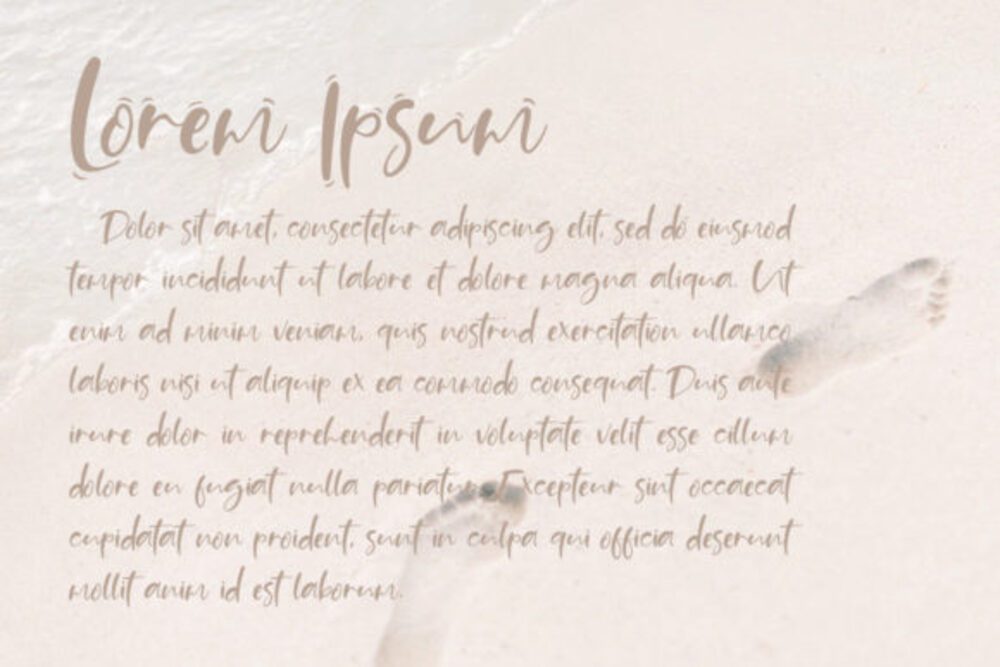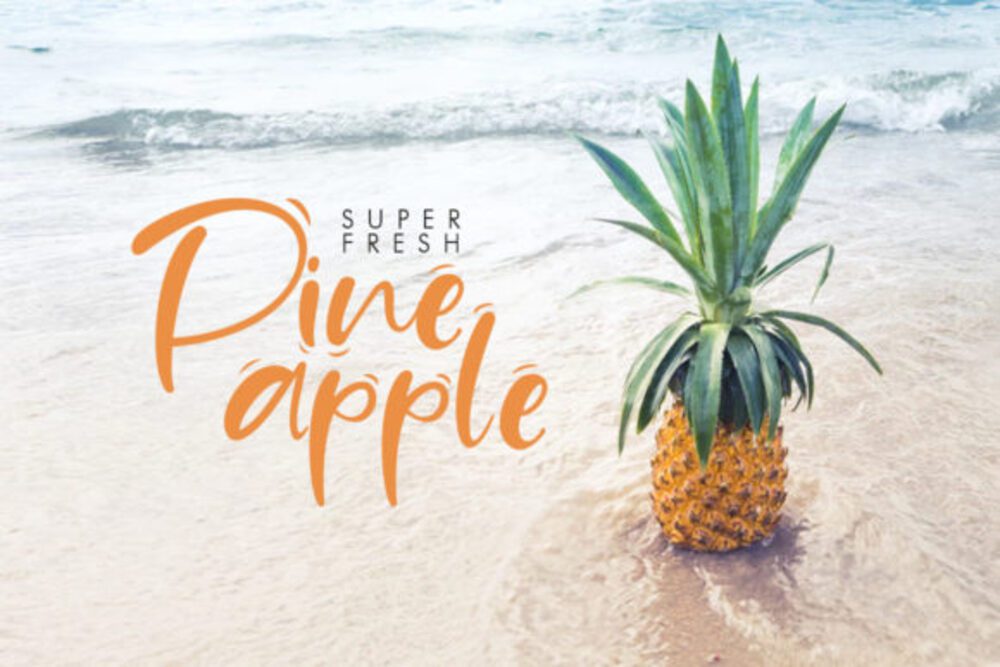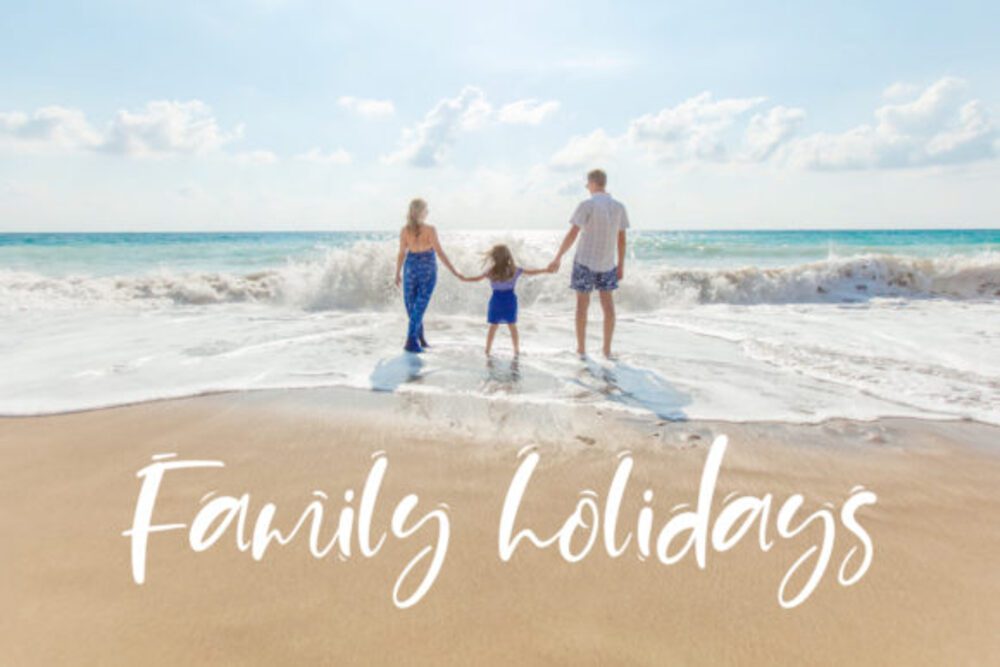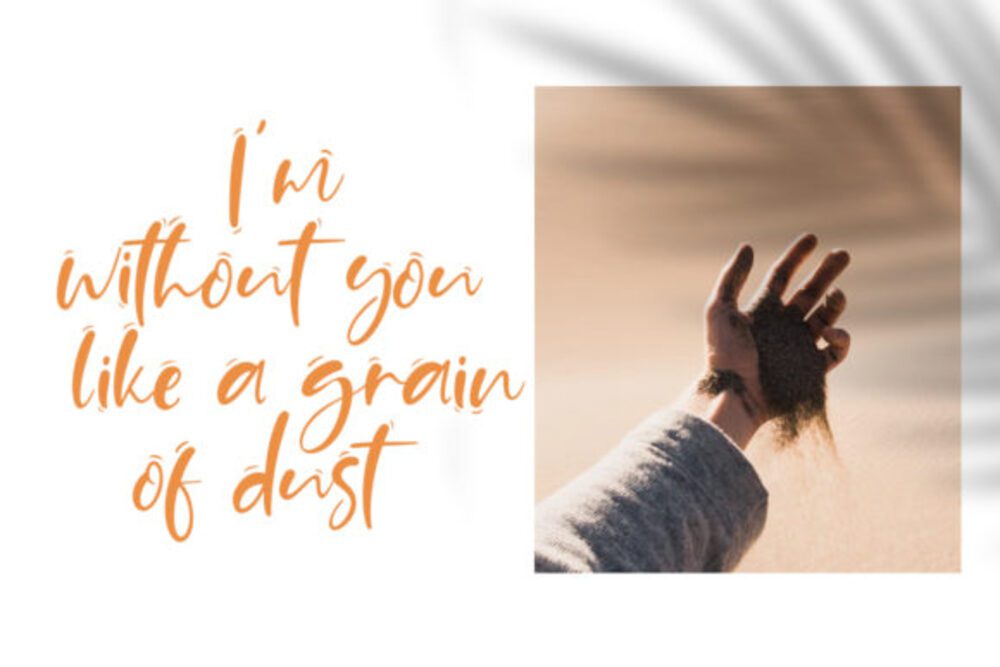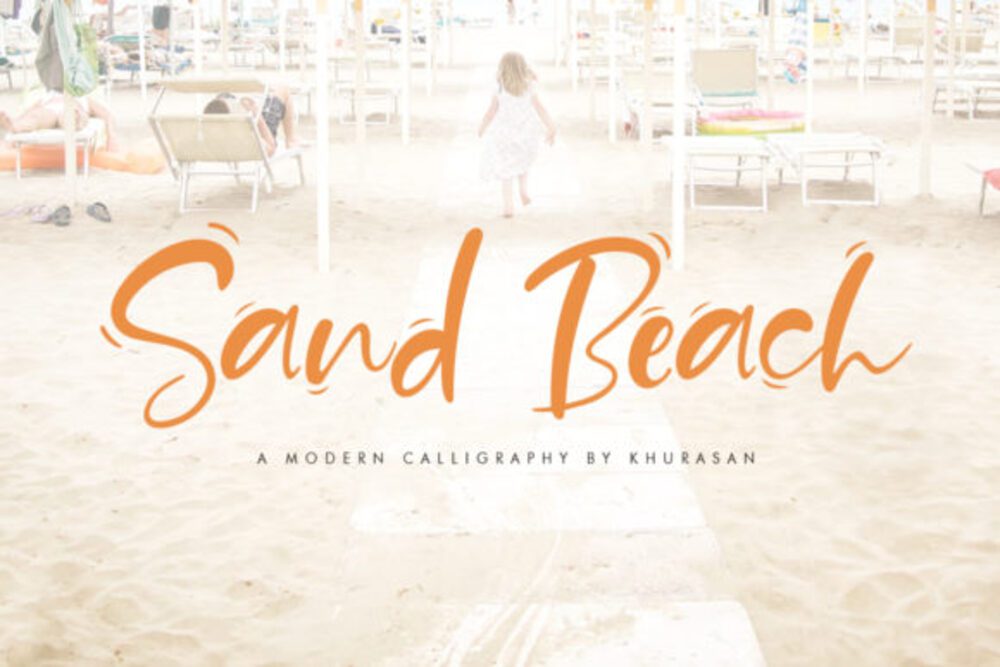
Sand Beach Font
Sand Beach Font captures the essence of a sunny shoreline with its casual, flowing strokes. Its relaxed and breezy style makes it ideal for summer-themed projects, beach events, and creative designs.